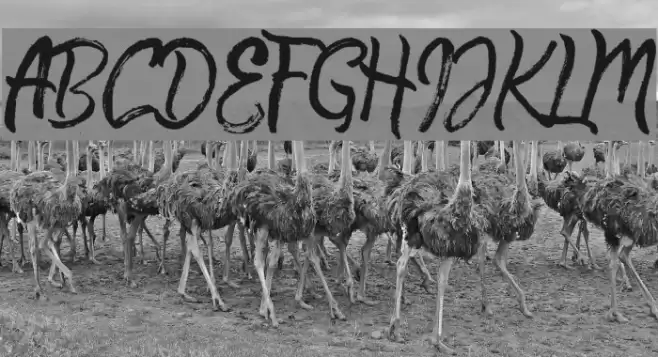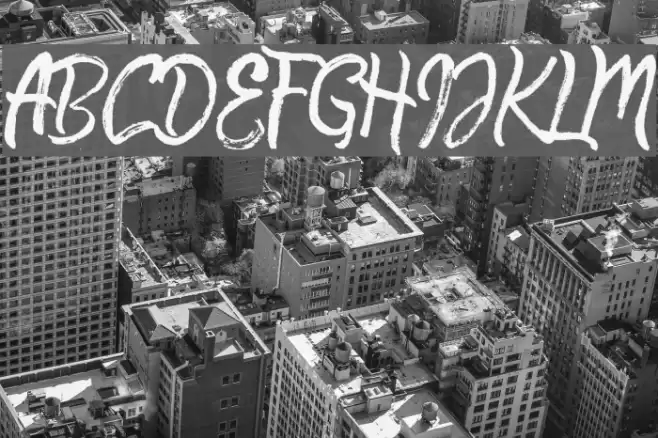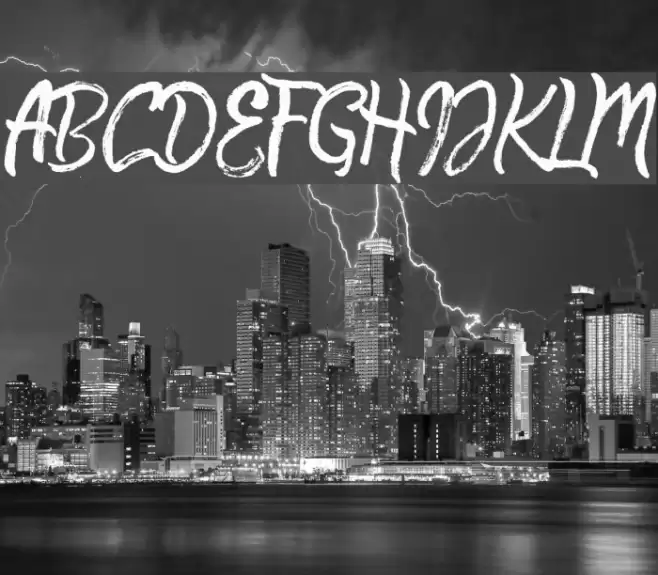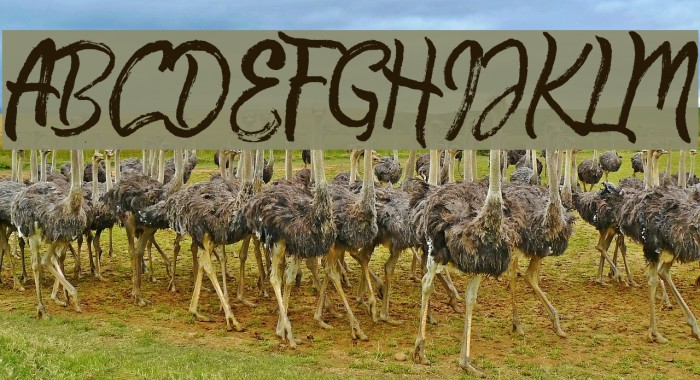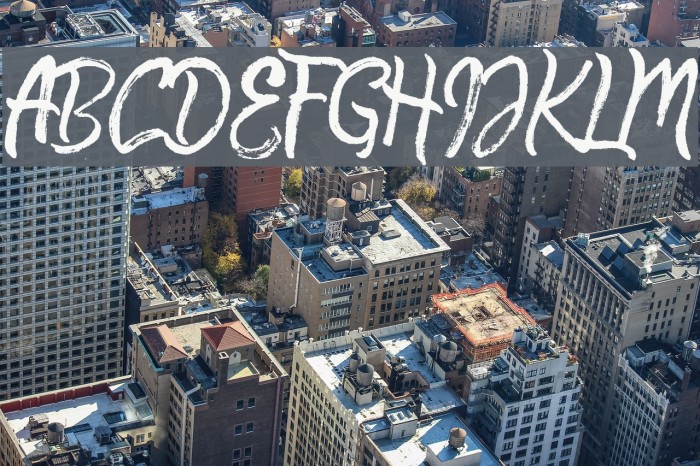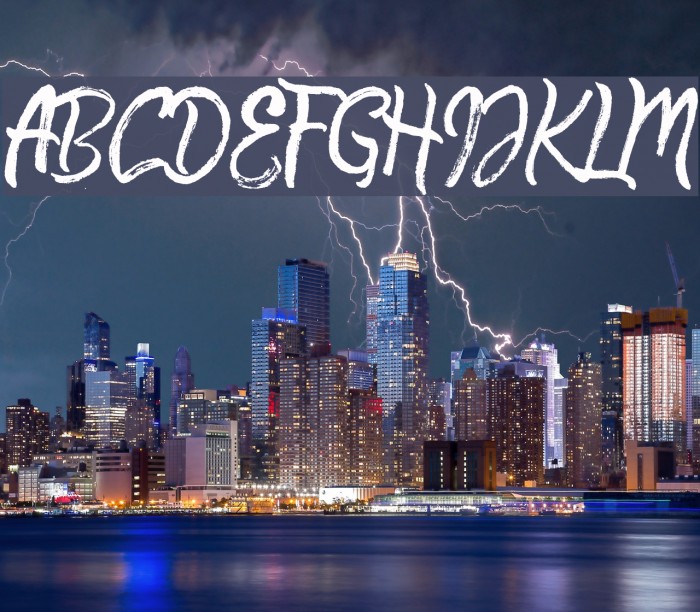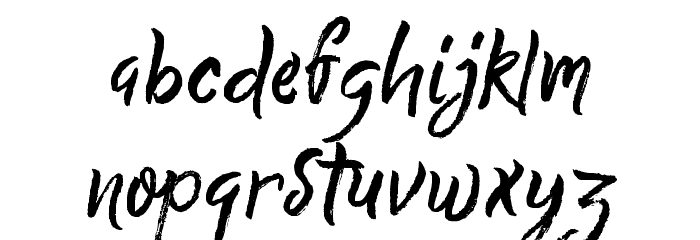
QuickSilverDemo Font
QuickSilverDemo Description
This font features a dynamic and expressive handwritten style, characterized by bold, sweeping strokes and a slightly rough texture that gives it an organic feel. The letters are fluid and connected, with a natural flow that mimics the movement of a brush or pen. The uppercase letters are bold and prominent, while the lowercase letters maintain a consistent style with slightly more variation in height and form. The overall appearance is artistic and energetic, making it suitable for creative and informal applications. The font's unique texture and lively character make it stand out, offering a sense of personality and flair.
A bold, expressive handwritten font with a dynamic, brush-like texture from Script fonts.
- Proposed Projects: Ideal for creative projects such as posters, invitations, branding, and artistic designs where a personal touch is desired.
- Use Case: Logos, Headlines, Artistic designs